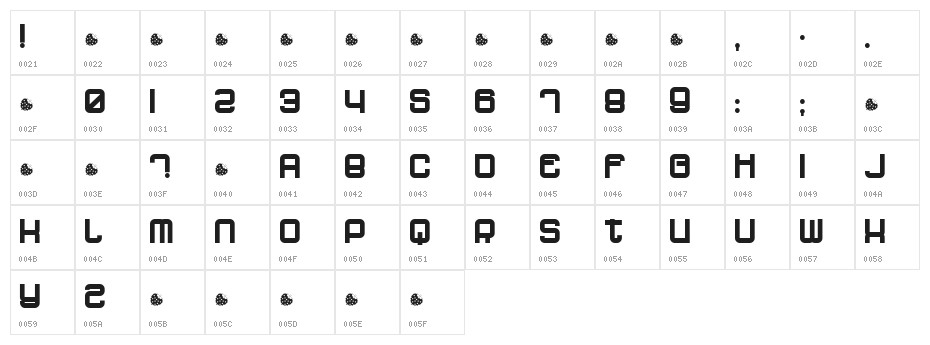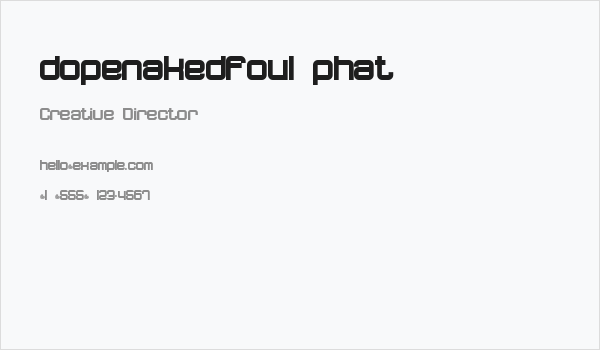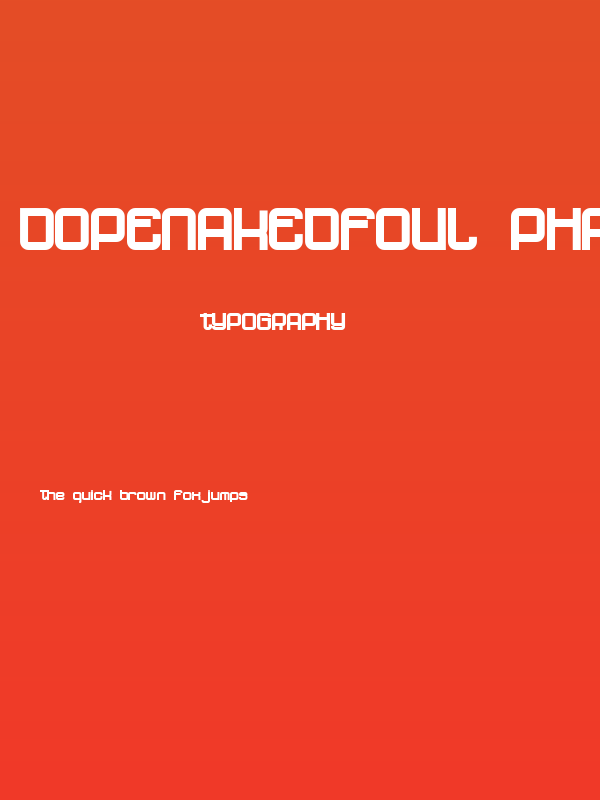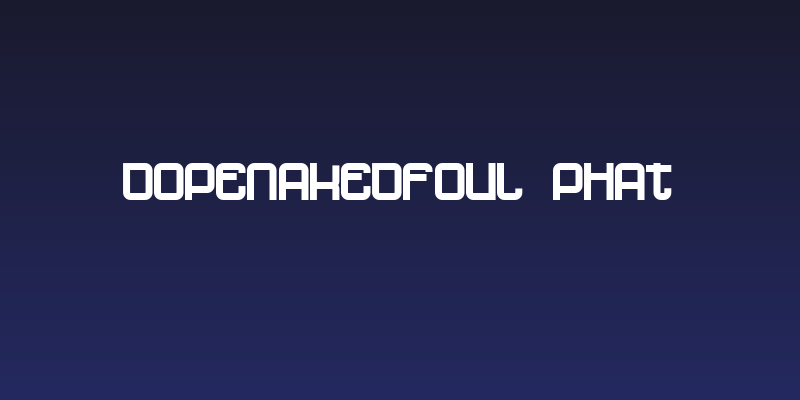
dopenakedfoul phat Font
dopenakedfoul phat Description
This font features a bold and modern design with a geometric and slightly rounded structure. The uppercase and lowercase letters maintain a consistent height, creating a uniform appearance. The characters are wide and have a substantial presence, making them suitable for impactful designs. The numbers follow the same style, ensuring a cohesive look across all elements. Special characters are distinct and maintain the bold, geometric theme. The overall style is contemporary and eye-catching, ideal for projects that require a strong visual statement.
| Proposed Projects | Ideal for branding, posters, headlines, and digital media where a strong, modern aesthetic is desired. |